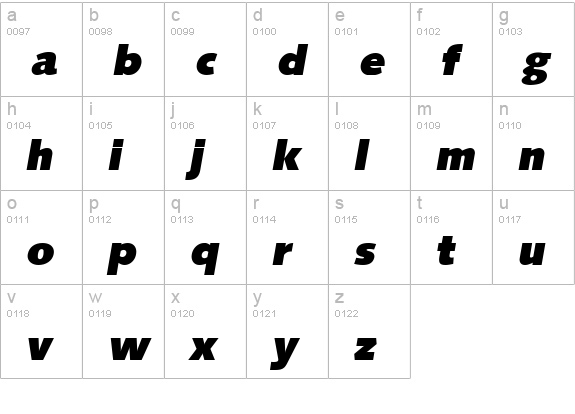
Lansette Display SSi Italic Font Details
Lansette Display SSi Italic is a distinctive, italic variant in the Lansette typeface family \xE2\x80\x94 well suited to design and typography projects.
Lansette Display SSi Italic font is a stunning typeface that effortlessly combines elegance and modernity. With its sleek, slanted italic design, this font exudes a sense of sophistication and uniqueness, making it an excellent choice for various creative projects. The stylish curves and distinct letterforms of Lansette Display SSi Italic font add a touch of finesse to any typographic composition. Whether used in headlines, logos, or branding materials, this font is sure to captivate and leave a lasting impression on the audience. One of the most remarkable aspects of Lansette Display SSi Italic font is that it is free. Yes, you read that right – this remarkable font is freely available to download at FontsMarket.com. This means that designers, creatives, and enthusiasts alike can effortlessly access and utilize this font without any financial barriers. Downloading and installing Lansette Display SSi Italic font is a breeze, thanks to the user-friendly interface of FontsMarket.com. Once you have this font in your collection, you will have the freedom to explore its endless possibilities in your design projects. So, whether you are a professional designer looking to enhance your typography game or a hobbyist seeking to add a touch of elegance to personal projects, Lansette Display SSi Italic font is a must-have. With its exquisite style and the added bonus of being freely available, this font is a true gem that will elevate your designs to new heights.